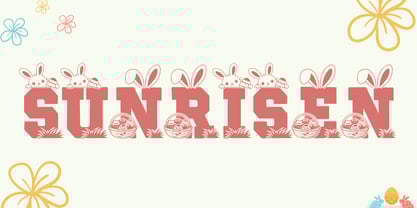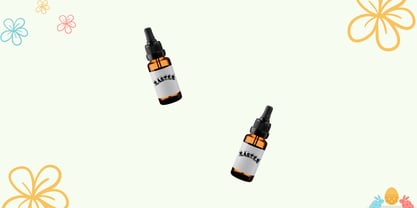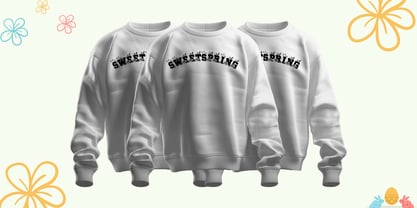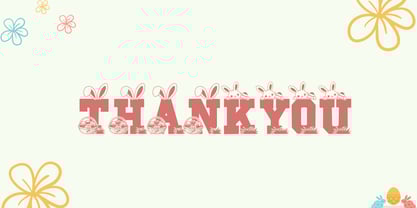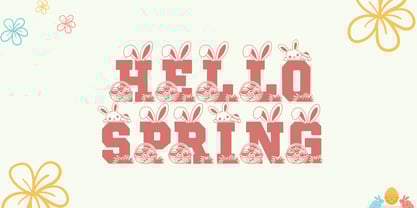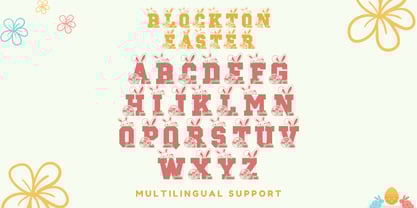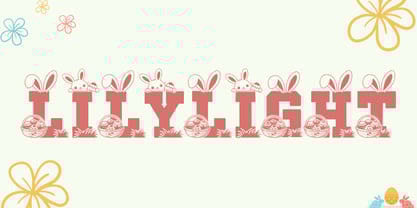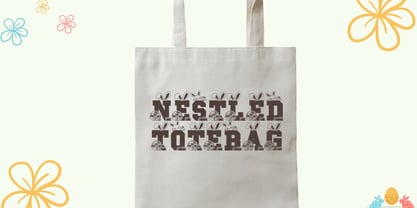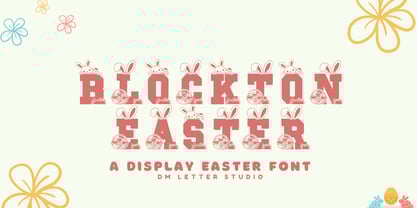
Blockton Easter
by DM Studio
The Blockton Easter Font Family was designed by Dimas Prasetyo and published by DM Studio. Blockton Easter contains 1 styles. More about this family
Meet Blockton Easter, the Bold Easter Display Font Blockton Easter is a bold block display font designed with a cheerful Easter spirit. It keeps the strong, chunky structure of Blockton while adding a light, friendly seasonal feel that works perfectly for spring designs. The letterforms are thick and well balanced, so they stay clear and readable at any size. Use it for Easter cards, gift tags, posters, classroom decor, packaging, stickers, and seasonal branding. As a result, your Easter designs feel joyful, bold, and easy to spot. Why Blockton Easter Font sells First, it installs easily and works smoothly in Canva, Photoshop, Illustrator, and most design apps. Next, the solid shapes cut and print cleanly for vinyl, stickers, laser projects, and screen printing. Then layouts come together quickly because the block structure is simple and predictable. Moreover, the bold style stands out from delicate script Easter fonts, helping your products catch attention in seasonal listings. Therefore, it’s a great choice for fun, high-impact Easter designs. Fast layouts with the Blockton Easter Font Start with short, happy phrases and let the bold shapes lead. After that, add supporting text in a clean sans font for balance. Because Blockton Easter has strong geometry, it works especially well in badges, stacked layouts, and boxed designs. In addition, it shines on labels, signs, stickers, and printable decorations. Finally, try color pairs like pastel yellow & white, mint & cream, lavender & ivory, or sky blue & soft gray to lock in the Easter vibe. Creative uses and quick wins Easter cards, posters, and printable quotes Gift tags, stickers, and holiday packaging Classroom decor, signs, and activity sheets Apparel designs, totes, and seasonal merch What you get Uppercase, lowercase, numbers, punctuation Design tips for Blockton Easter Font Keep text short so the bold shapes stay playful and clear. Also, leave enough spacing for small prints like tags and stickers. For extra charm, pair it with simple Easter icons like eggs, bunnies, or flowers. Finally, export at 300 DPI for print and at 2× size for web so everything stays crisp.
Designers: Dimas Prasetyo
Foundry: DM Studio